Behance is a fantastic platform where creative minds share their work. One of the standout features of this site is its vast library of fonts. These fonts are not just for show; they can significantly enhance the visual appeal of your projects. Understanding how to use these fonts effectively can make a big difference in how your work is perceived.
Fonts can convey different moods and messages. For example, a playful font can give a fun vibe, while a sleek font can communicate professionalism. By exploring the variety of fonts on Behance, you can find the perfect match for your project's tone and style.
Choosing the Right Fonts for Your Projects
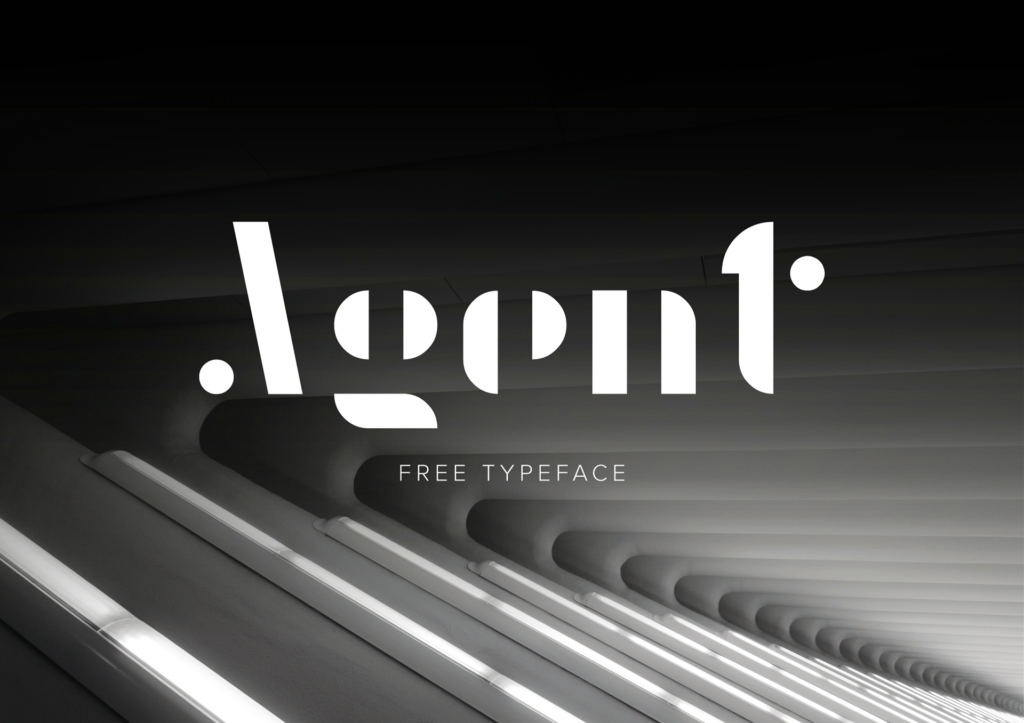
When it comes to choosing fonts, it's important to think about your audience and purpose. Here are a few tips to guide you:
- Know Your Audience: Understand who will see your work. Choose fonts that resonate with them.
- Consider Readability: Ensure your chosen font is easy to read, especially for long texts.
- Match the Style: Select fonts that complement the overall design of your project.
- Limit Font Choices: Using too many different fonts can make your design look chaotic. Stick to two or three at most.
By following these tips, you can create designs that not only look good but also communicate effectively.
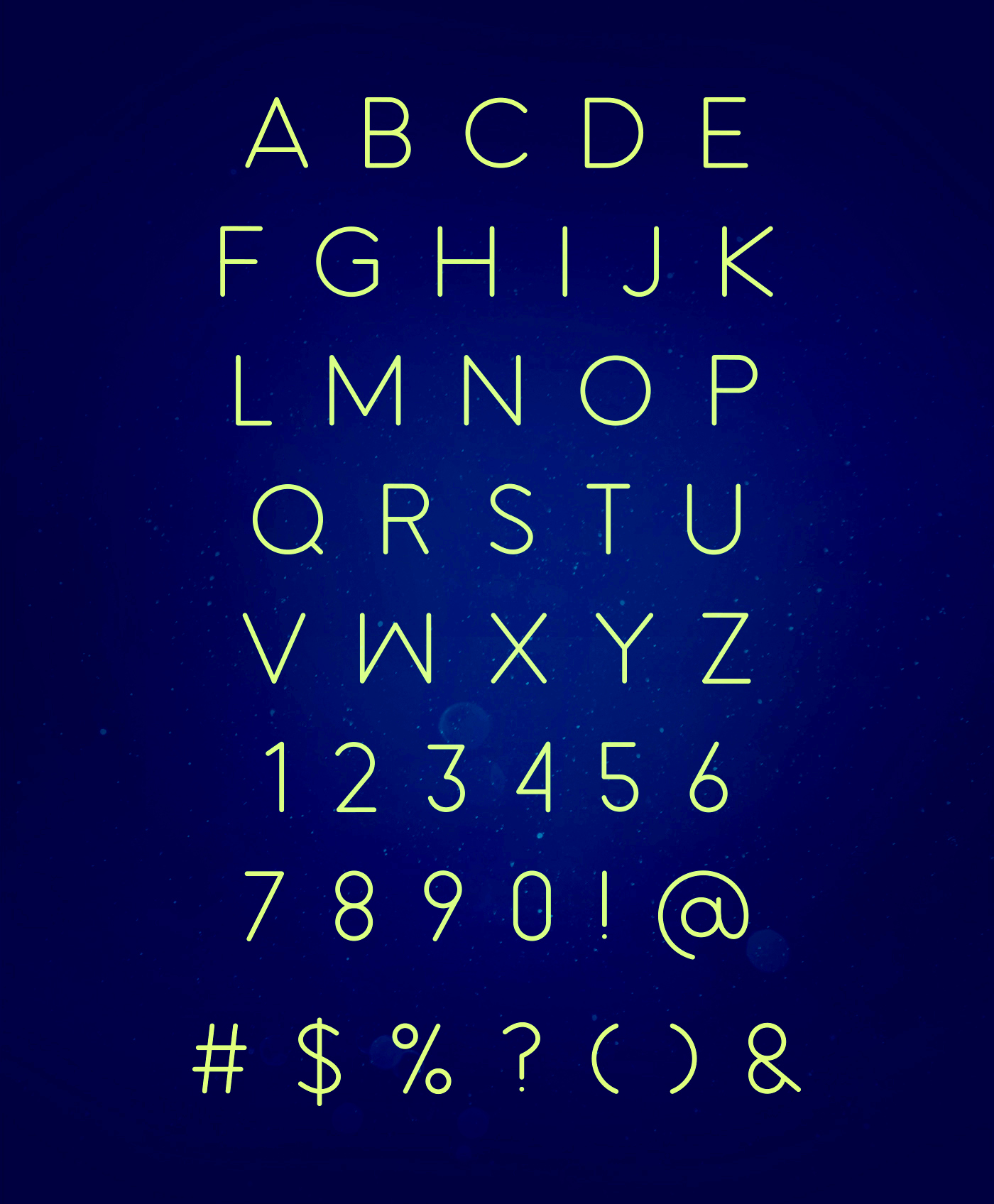
Applying Behance Fonts in Your Designs
Now that you've chosen and downloaded your Behance fonts, it's time to apply them to your designs. This step can truly bring your project to life. Fonts aren't just about looking good; they also help communicate your message and evoke emotions. So, how do you effectively integrate these fonts into your work?
Here are some key points to consider:
- Consistency is Key: Use your chosen fonts consistently across all elements of your design. This helps create a cohesive look and feel.
- Hierarchy Matters: Establish a clear hierarchy by using different font sizes and weights. For example, use a larger, bolder font for headings and a lighter font for body text.
- Spacing is Important: Pay attention to spacing, both between letters (kerning) and lines (leading). Proper spacing makes your text more readable and visually appealing.
- Test Your Design: Before finalizing your design, test how it looks in different formats, such as on a screen versus in print. Adjust as needed.
By applying these principles, you can enhance your designs and ensure that your Behance fonts work harmoniously with your overall aesthetic.
Tips for Combining Fonts Effectively
Combining fonts can be a fun yet tricky part of the design process. The right combination can elevate your work, while a poor mix can make it look cluttered. Here are some handy tips to help you combine fonts effectively:
- Pair Fonts Wisely: Choose a font for headings that contrasts well with your body text. For example, a bold sans-serif font for headings and a classic serif font for body text can work beautifully together.
- Limit Your Combinations: Stick to two or three fonts to avoid overwhelming your audience. A simple rule of thumb is to have one font for headings, one for body text, and optionally one for accents.
- Consider Style and Mood: Make sure the fonts you choose align with the overall mood of your design. For a playful project, you might want to mix a fun font with a straightforward one.
- Use Font Pairing Tools: Websites like Canva or Fontjoy can help you find great font combinations. These tools allow you to visualize how different fonts look together.
With these tips, you'll be able to create visually stunning designs that engage your audience effectively.
Common Mistakes to Avoid with Font Usage
While working with fonts, it's easy to make mistakes that can hurt your design. Here are some common pitfalls to avoid:
As you explore the world of fonts, don't hesitate to experiment and have fun. Whether you're creating for personal projects or professional endeavors, your choice of font is crucial in communicating your vision. So go ahead, dive into your creativity, and let your designs shine!